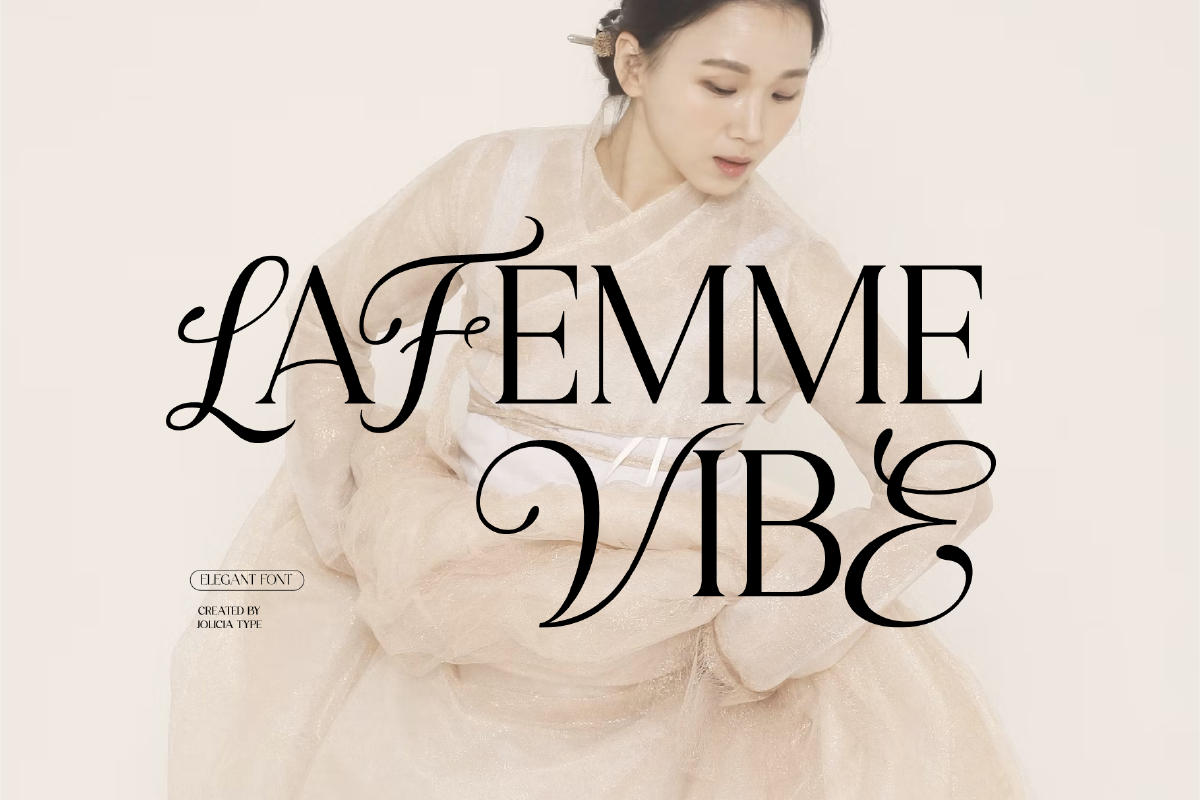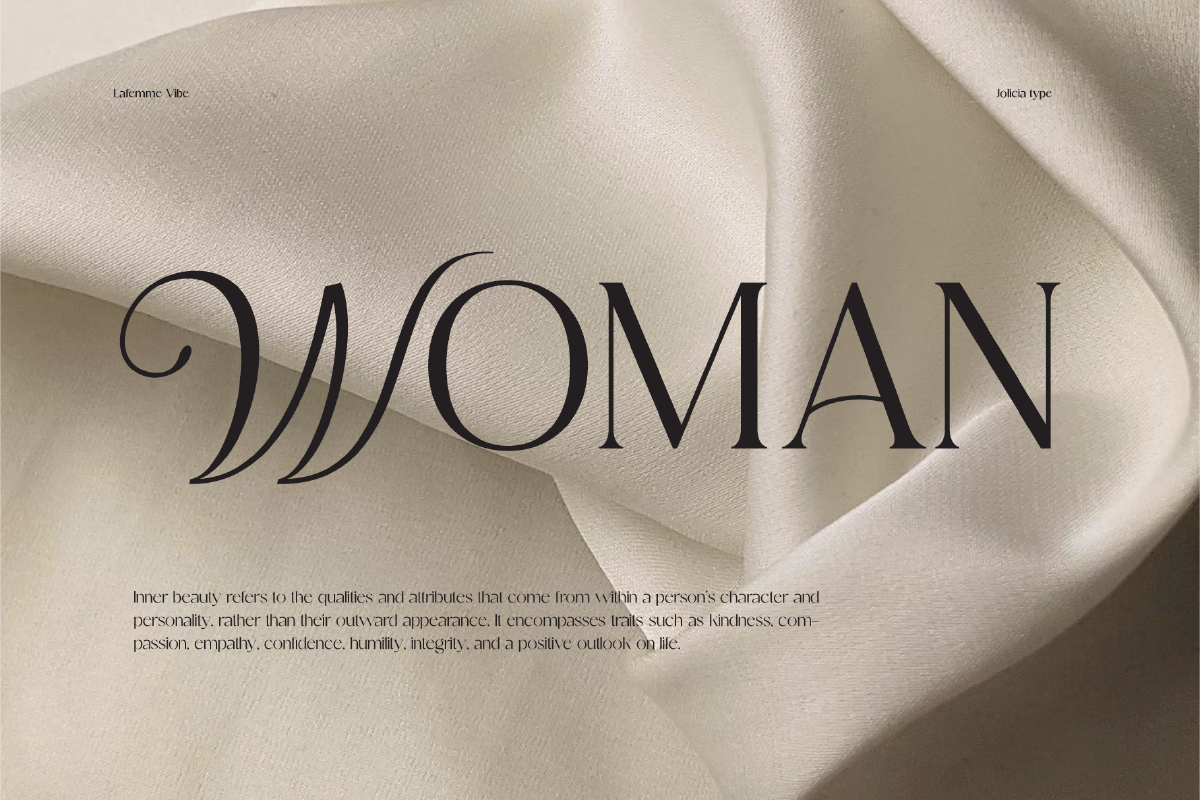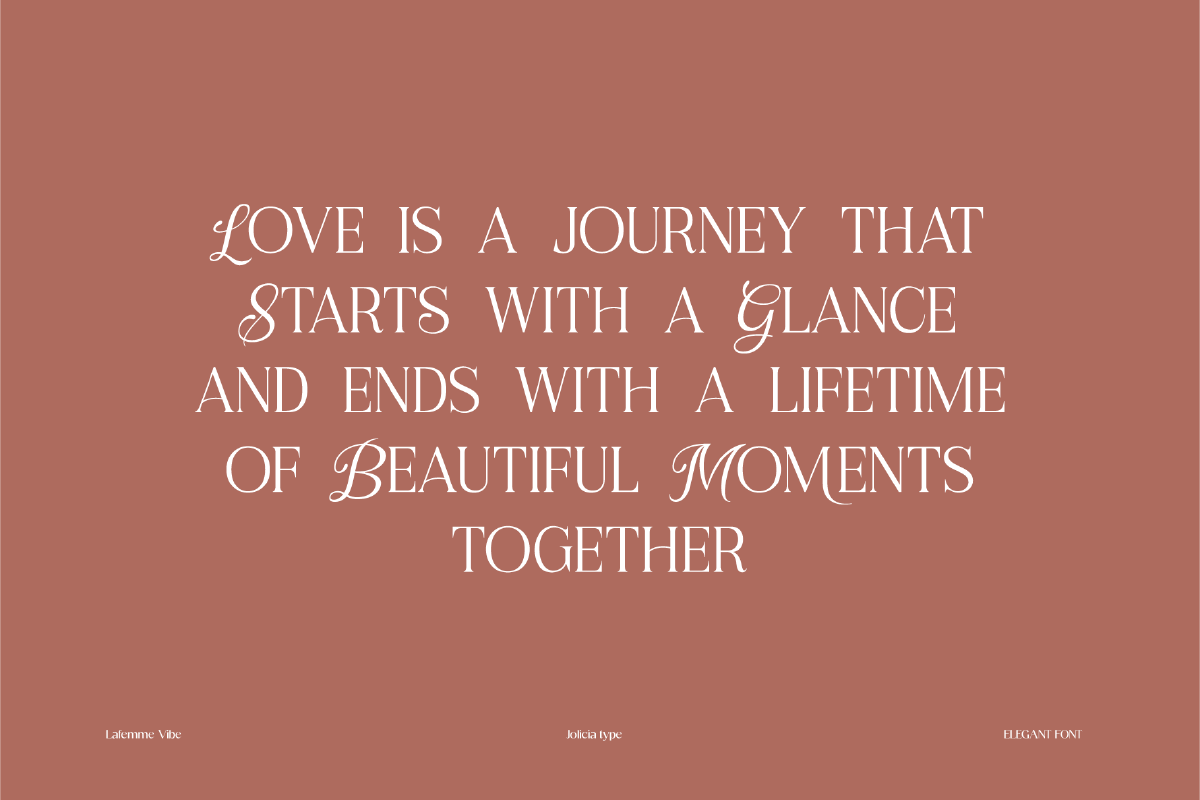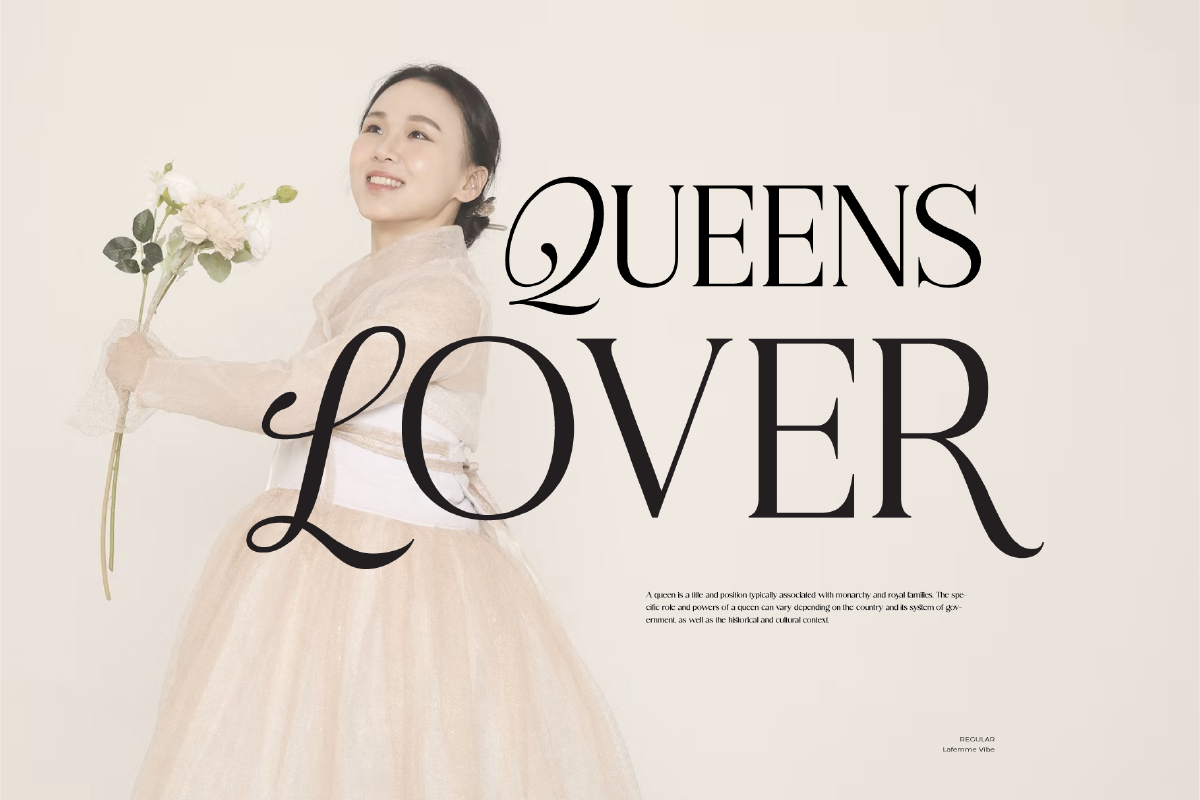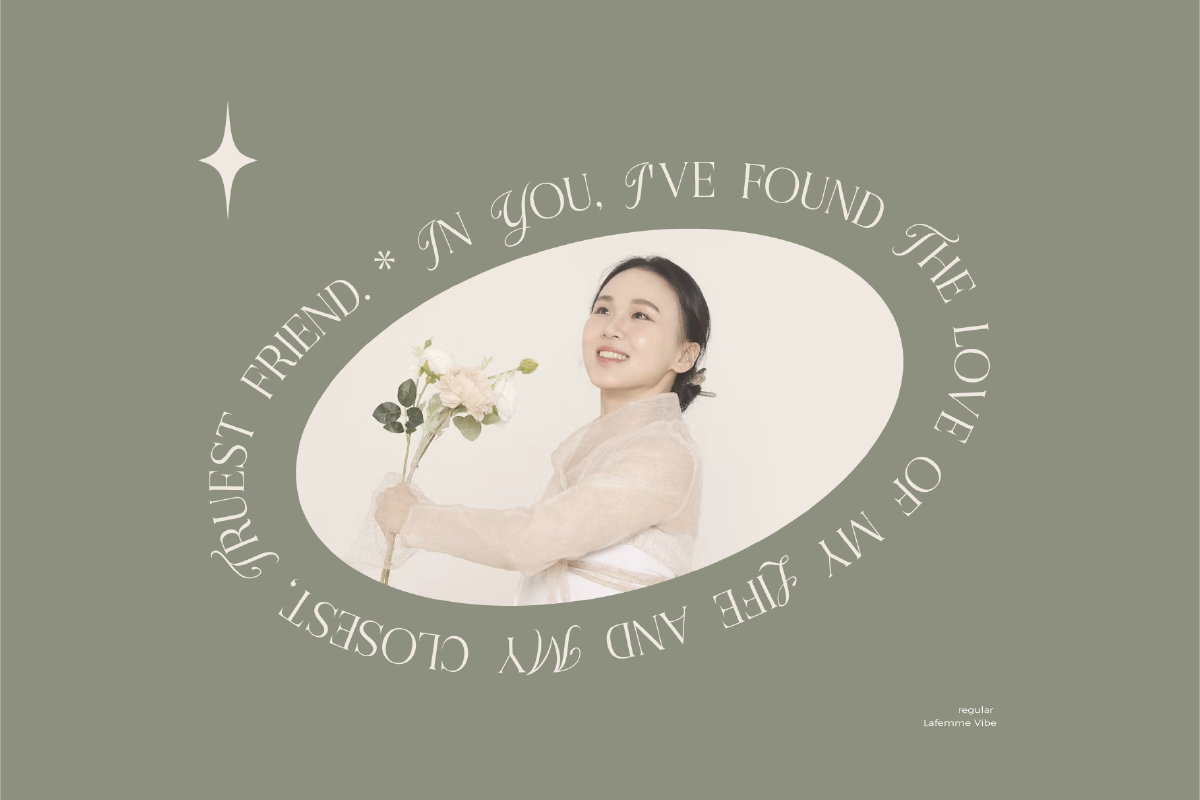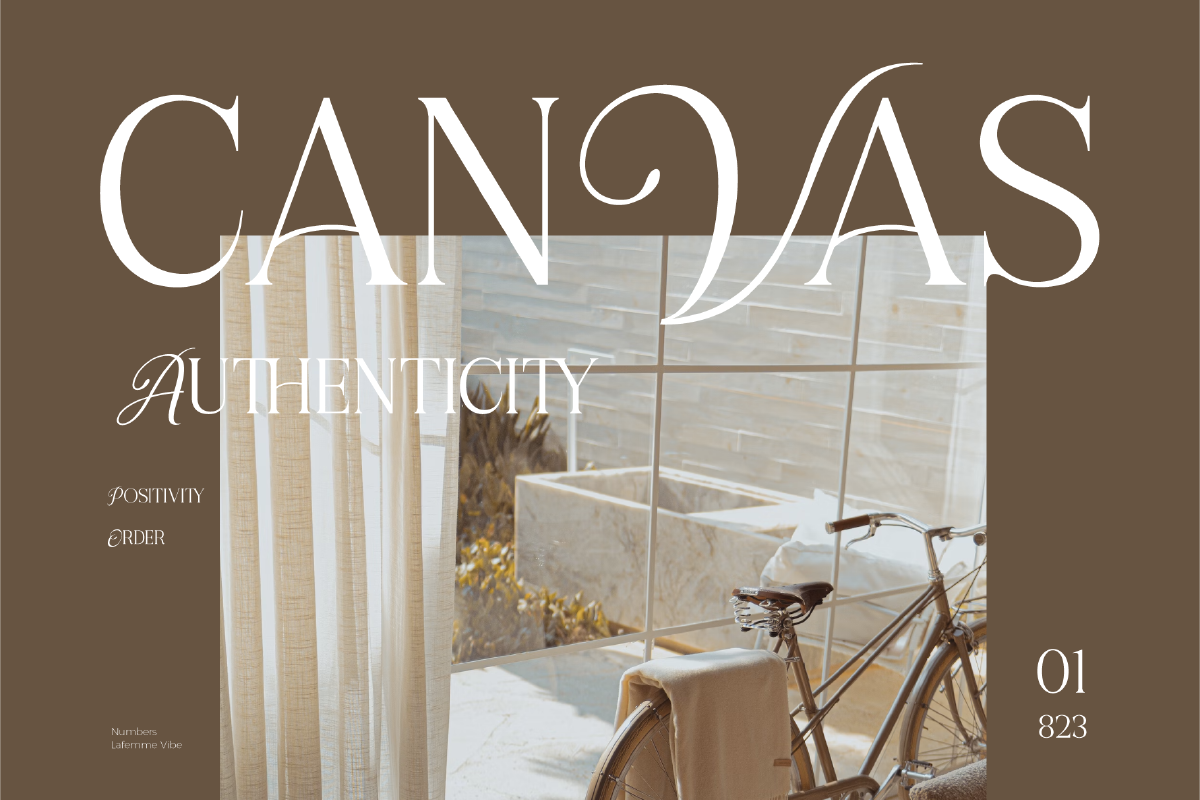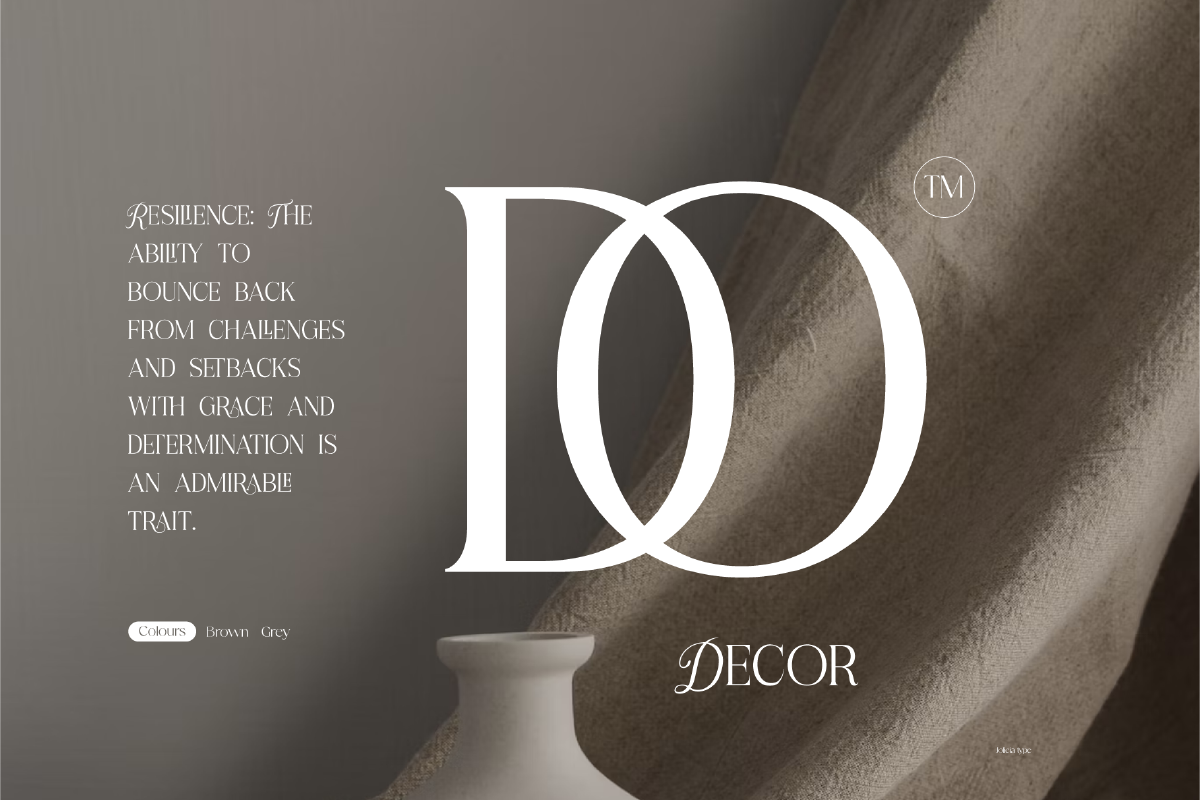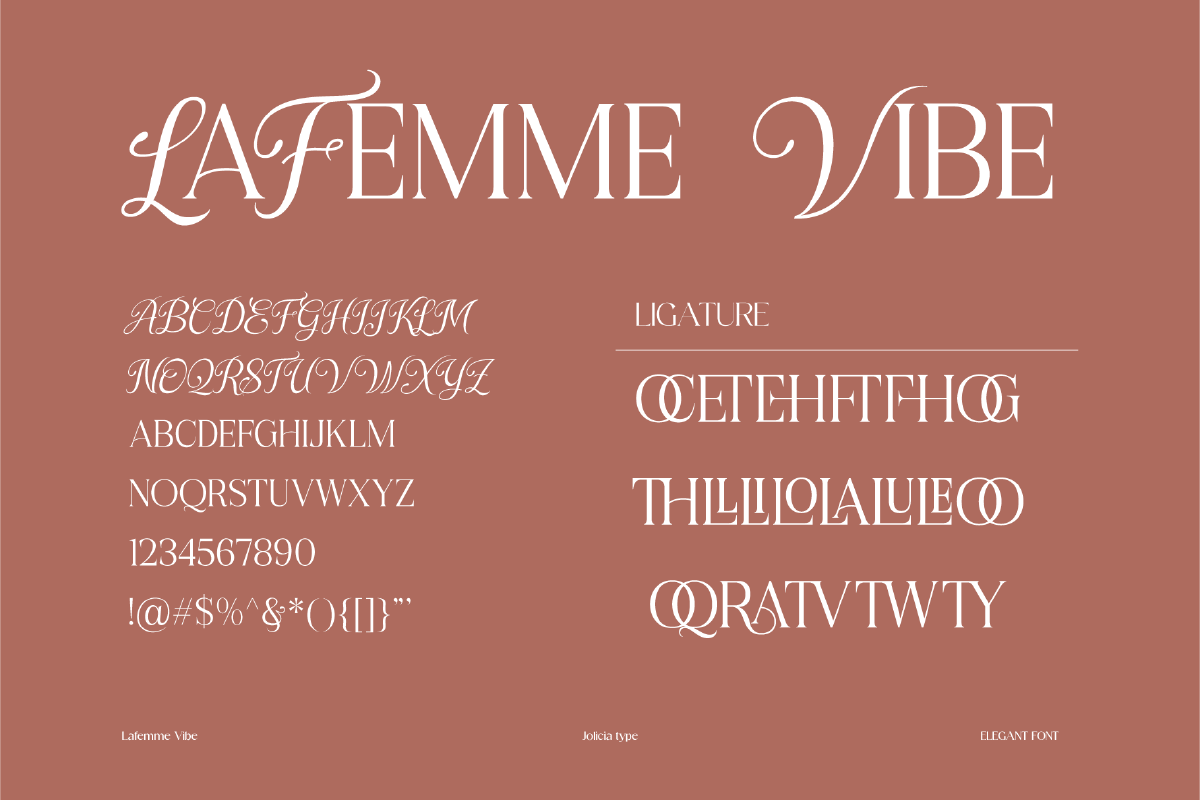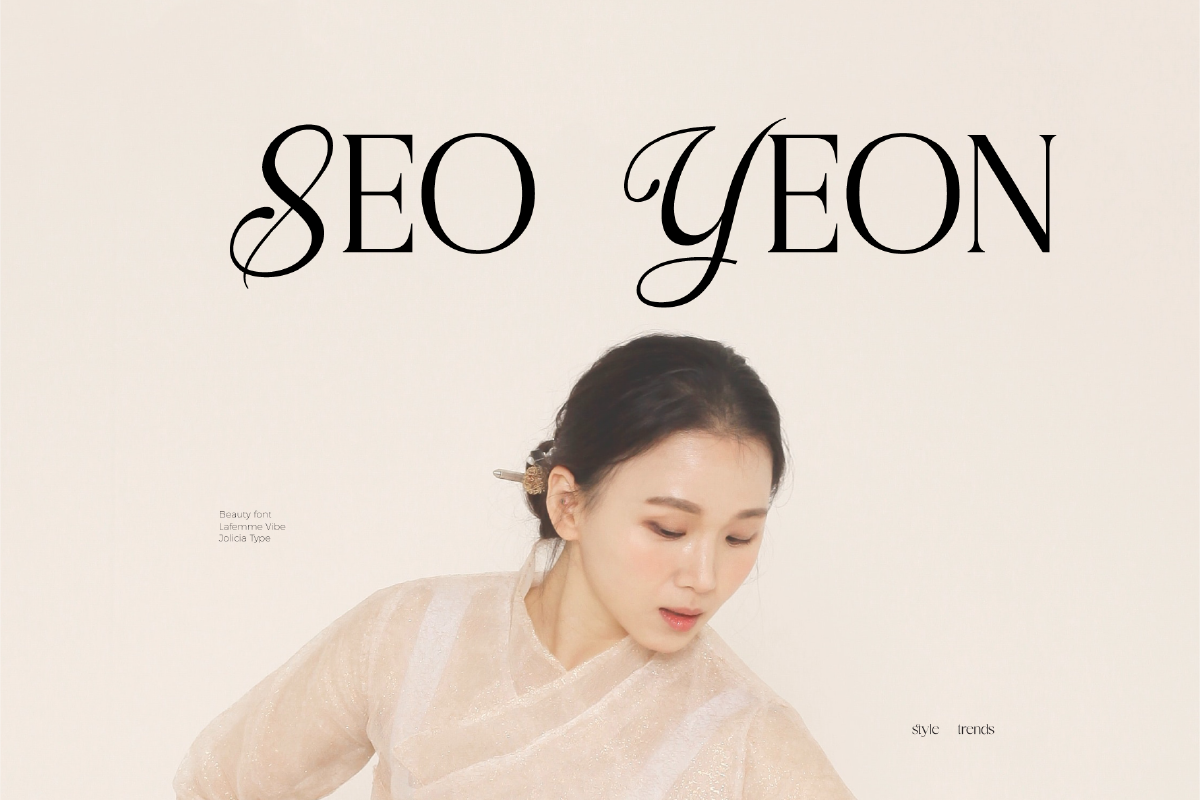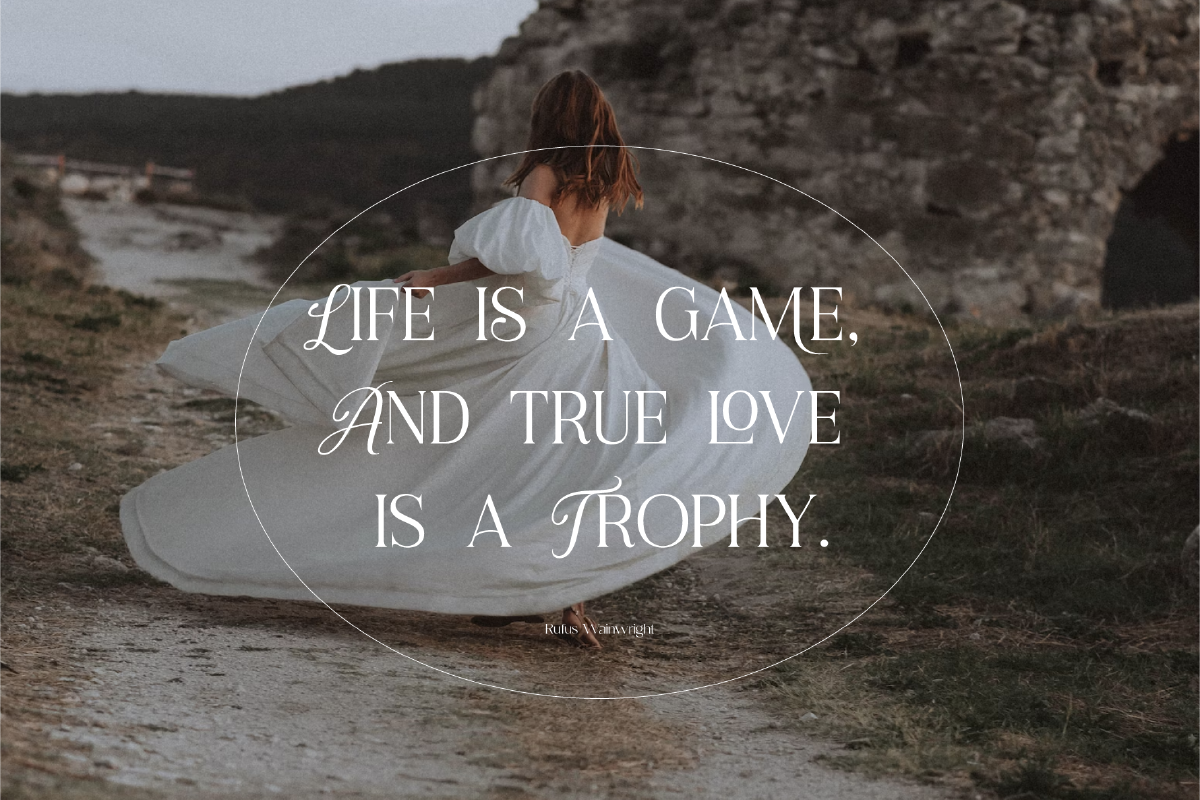
LaFemme Vibe – Serif Font
LaFemme Vibe – Serif Font is a conceptual font that exudes a modern and elegant aesthetic, tailored specifically for women. LaFemme Vibe is a typographic masterpiece created to bring a modern and elegant sensibility to women who appreciate beauty in every detail. It’s a font that effortlessly blends classic charm with contemporary allure, making it an ideal choice for a wide range of design projects aimed at celebrating the essence of femininity.